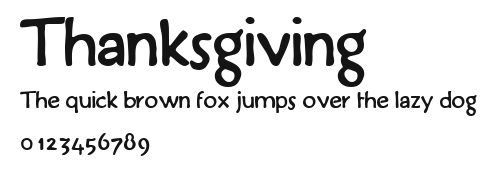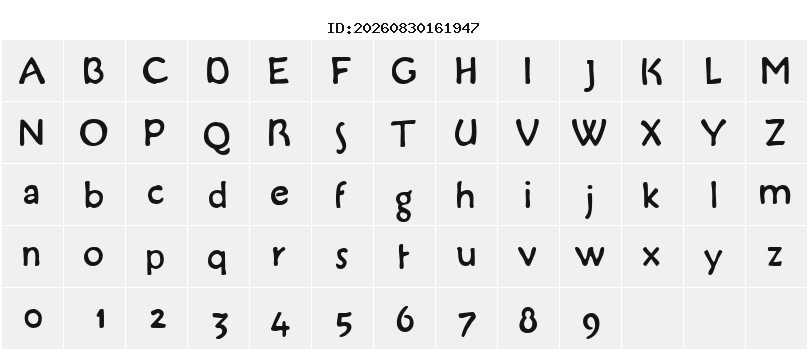
Thanksgiving Preview
• Font Name: Thanksgiving
About Thanksgiving.ttf
Thanksgiving.ttf is a modern, elegant sans-serif font designed for ultimate readability and visual harmony. Perfect for branding, headlines, web design, and print materials.